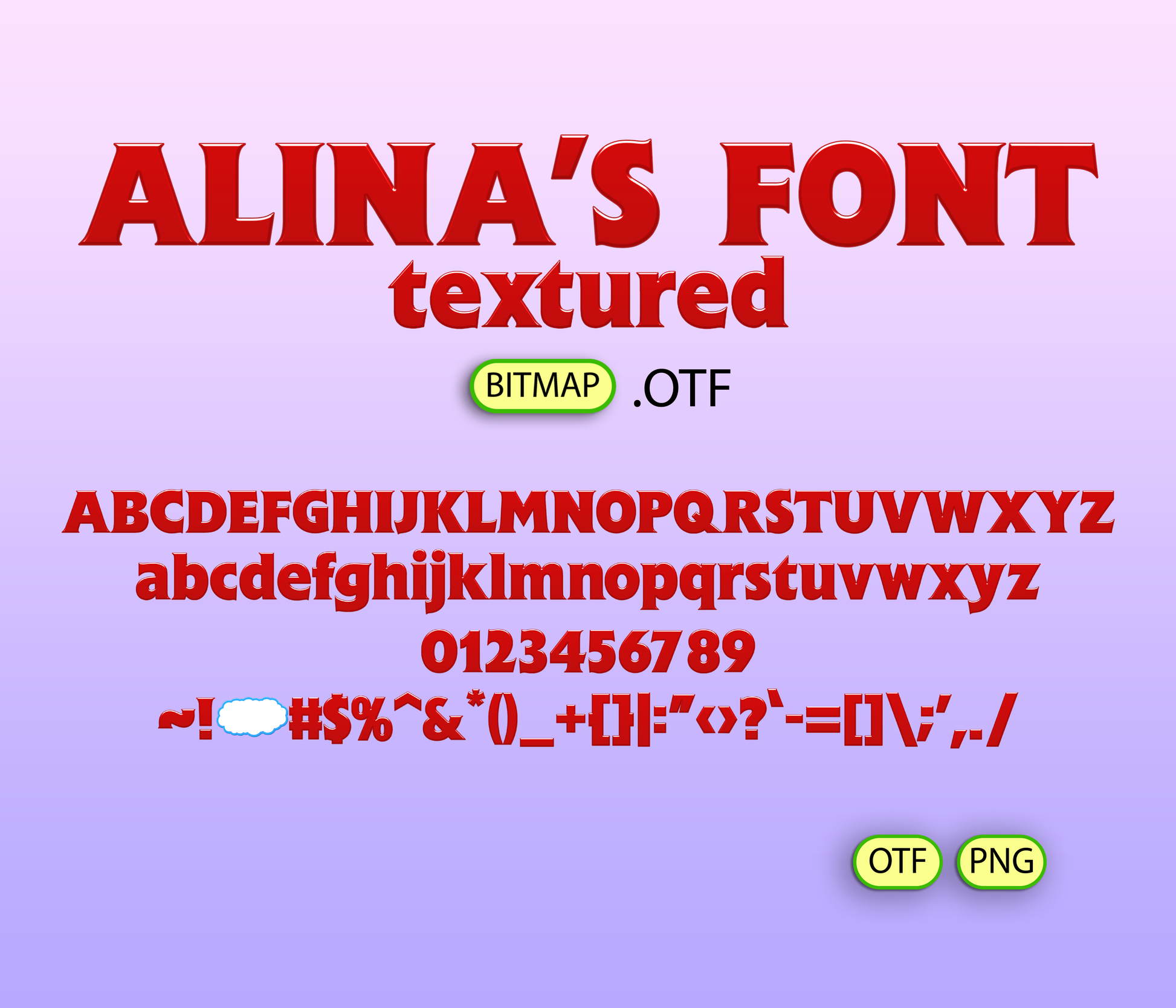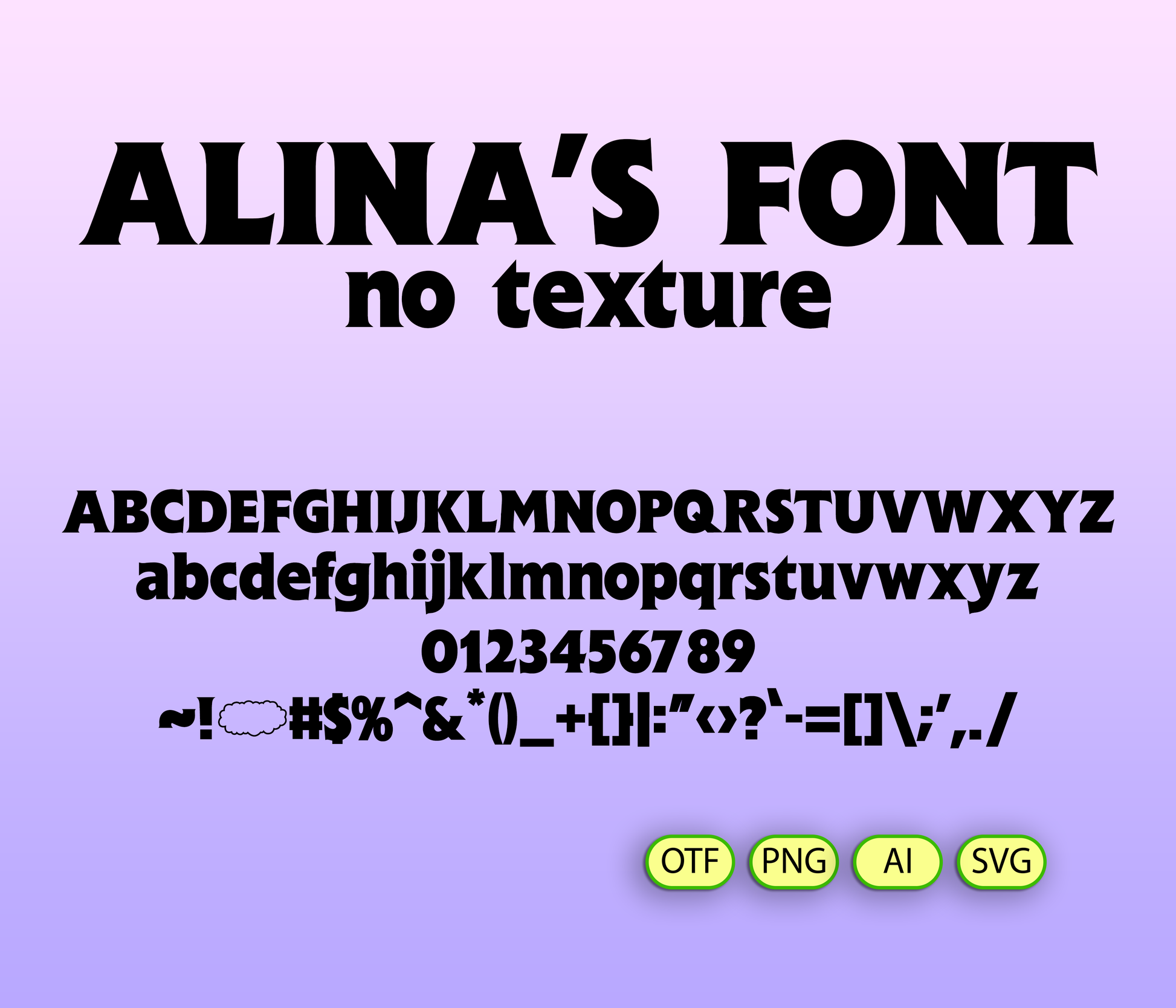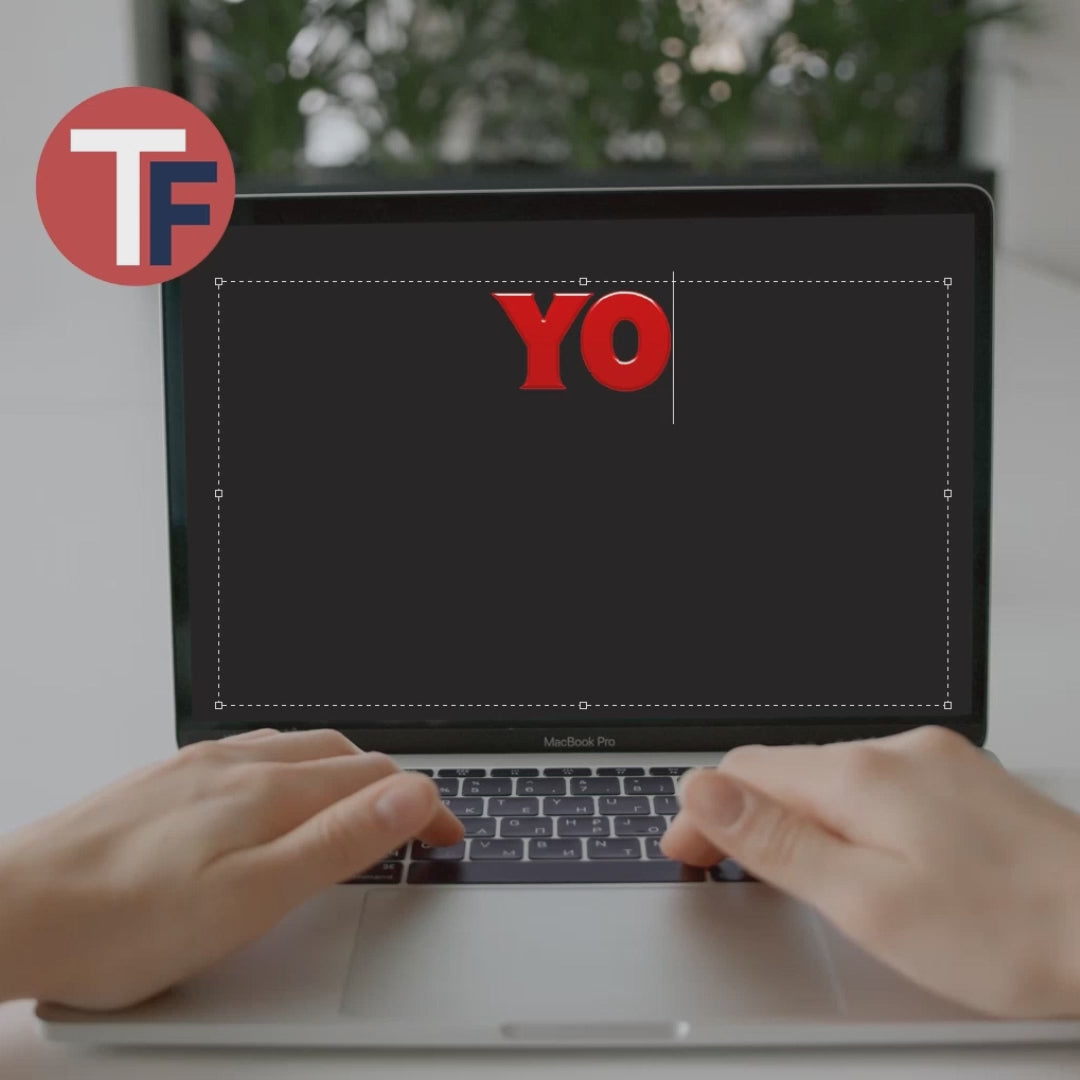
Railway Adventure Font Textured
Railway Adventure Font: Inspired by Beloved Locomotives
Embark on a whimsical journey with our Railway Adventure font, capturing the cheerful and adventurous essence of a beloved children’s series. Perfect for fans, parents, teachers, event planners, and designers, this font brings the charming spirit of friendly locomotives to your projects. Whether creating event invitations, themed merchandise, or digital content, our Railway Adventure font fills your projects with joy and adventure.
Our Railway Adventure-inspired font features playful, rounded lines and cheerful characters reflecting the series' friendly and engaging style. This versatile font is ideal for:
Our Railway Adventure font pays tribute to the beloved series, empowering you to infuse your designs with its joyful and adventurous spirit. Whether crafting promotional materials, unique merchandise, or adding a playful touch to personal projects, this font allows you to communicate with the vibrant and dynamic essence of friendly locomotives. Ready to bring railway magic to your projects? This font is your key.